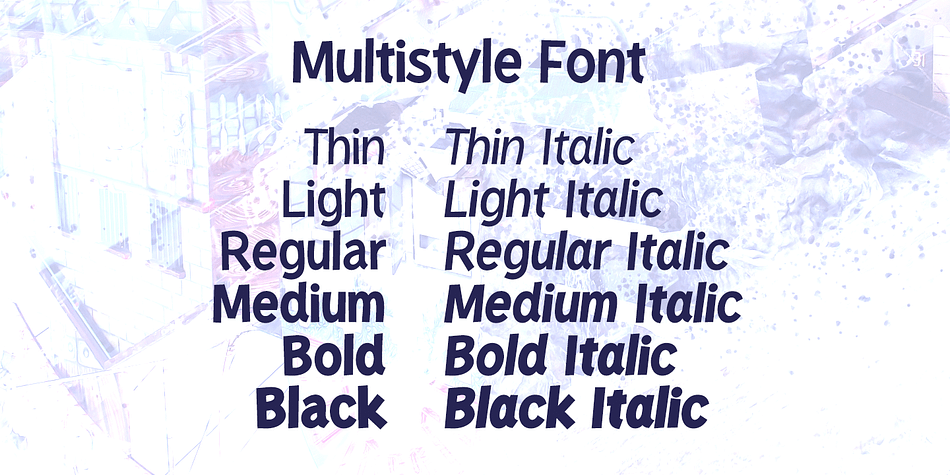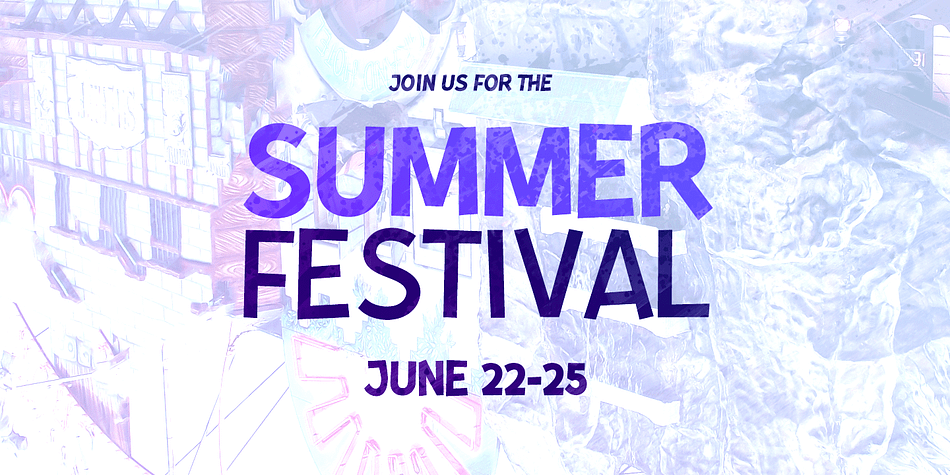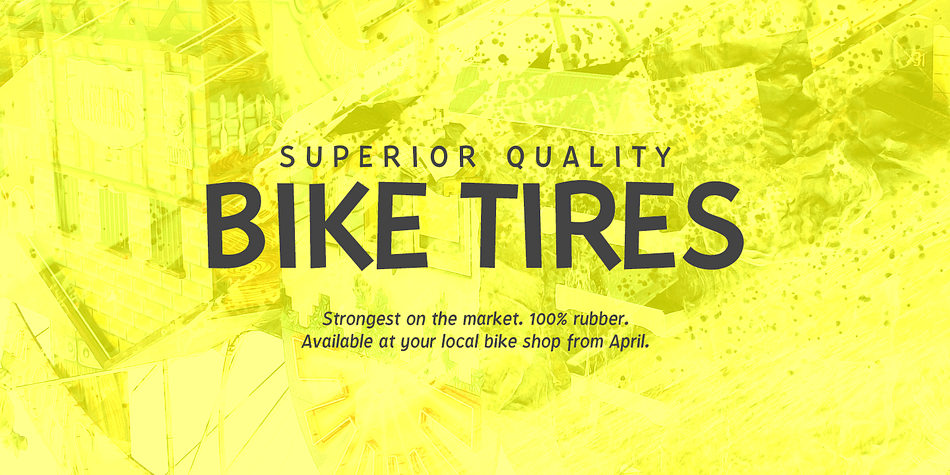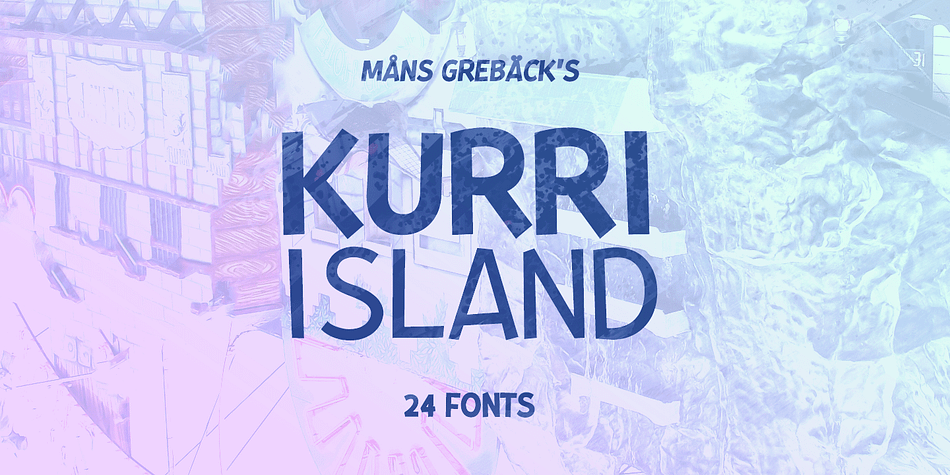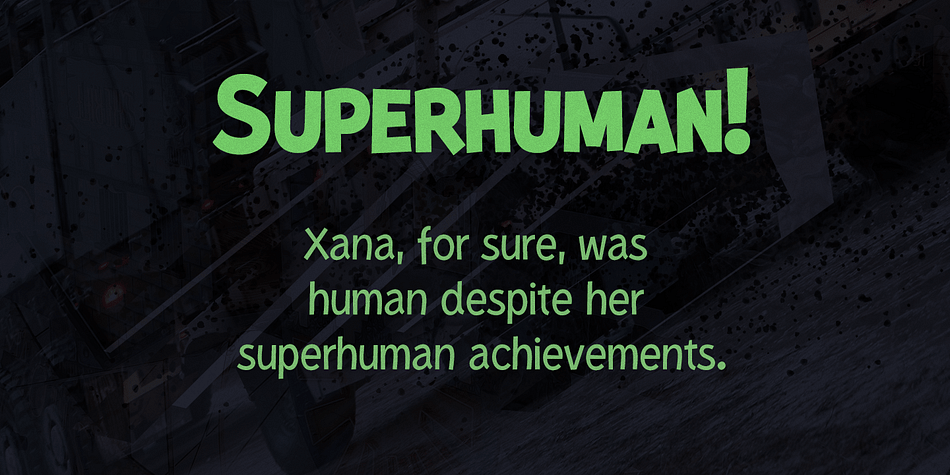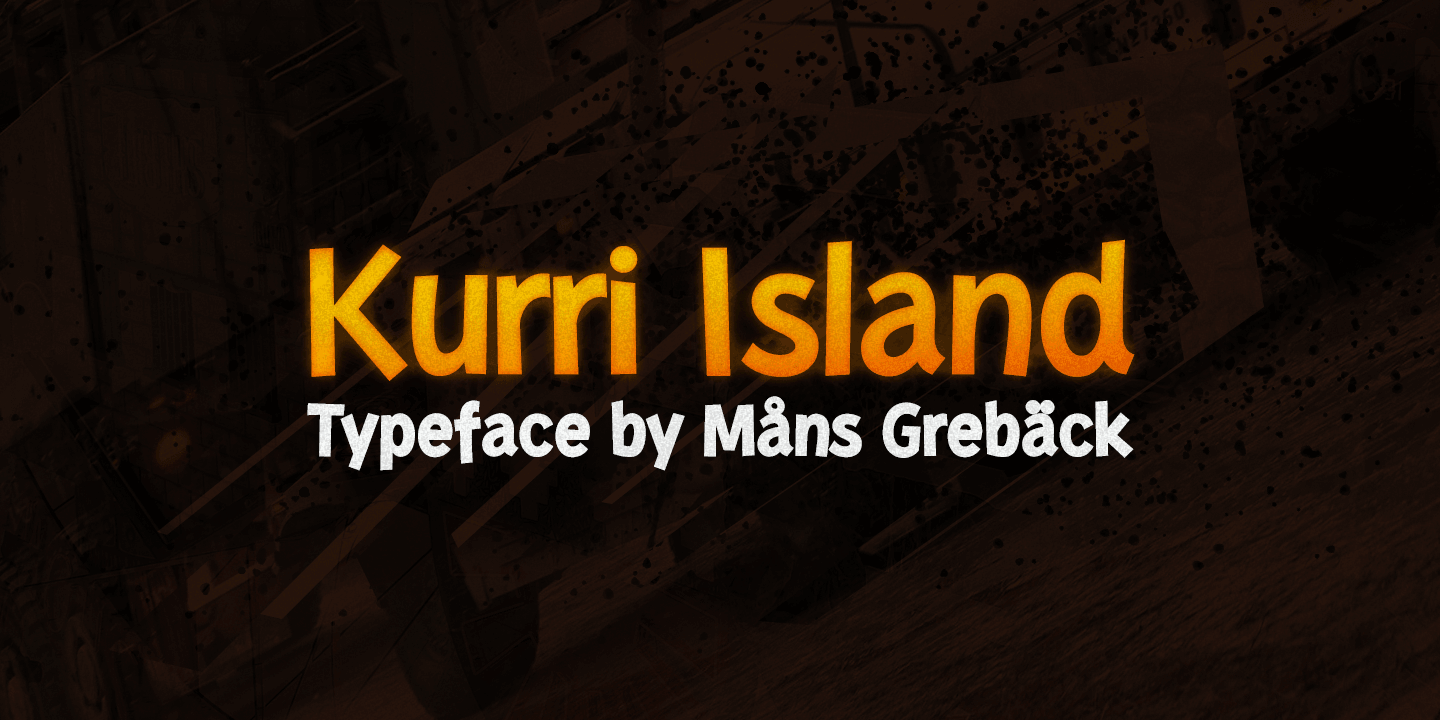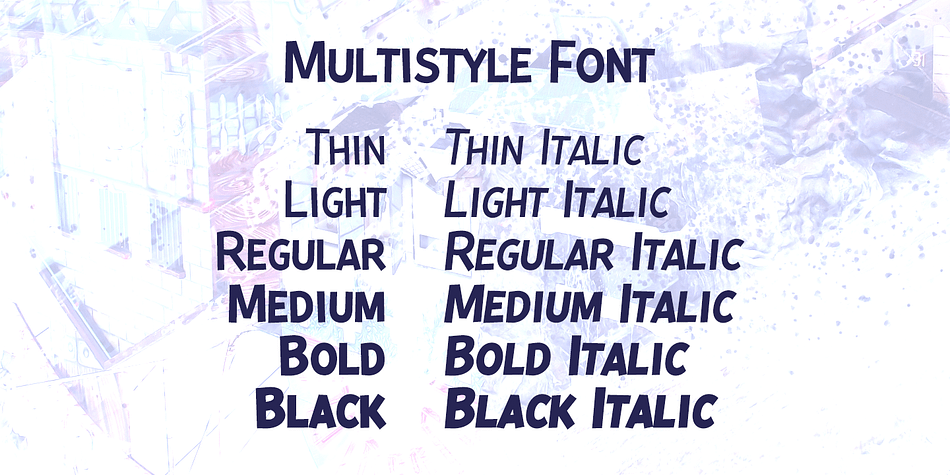
Designed by Måns Grebäck, Kurri Island is a comic and sans serif font family. This typeface has twenty-four styles and was published by Måns Grebäck.
Kurri Island is a positive sans-serif typeface.
It was drawn and created by Måns Grebäck between 2017 and 2020.
With its slightly irregular strokes and bends the font has a characteristic fun and comical and look.
The sans is easy-going and relaxed while being serious enough to be used professionally.
Kurri Island is an extensive multi-style font family, composed of 24 high quality fonts.
The weights are Thin, Light, Regular, Medium, Bold and Black.
Being favorably used as a block letter sans-serif, it has an additional Caps style to maximize the impression, and each font are provided as Italic.
Its range of styles gives the typeface great flexibility, while also giving the ability to emphasize phrases or words.
Kurri Island contains all characters you’ll ever need, including all punctuation and numbers.
It has an extensive lingual support, covering all European Latin-based scripts.